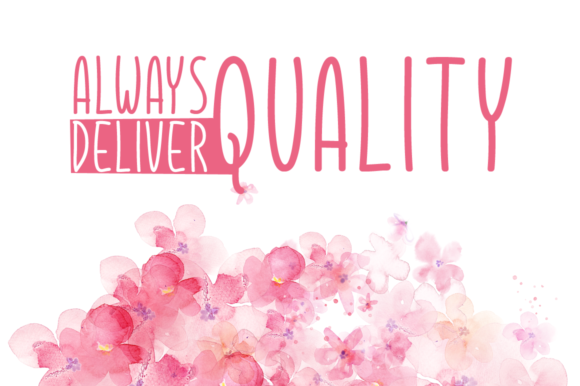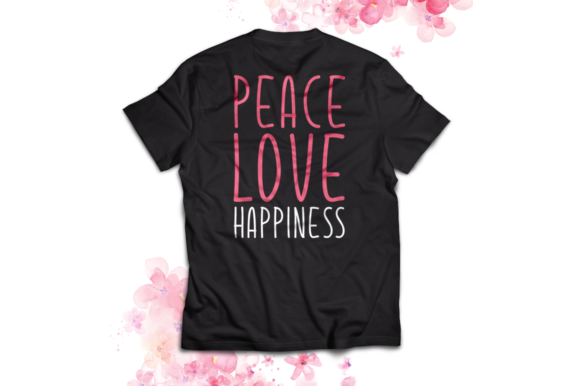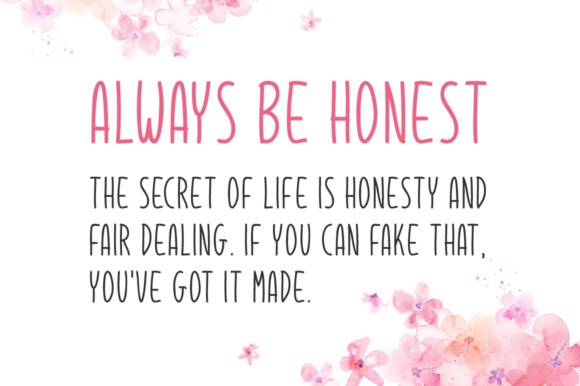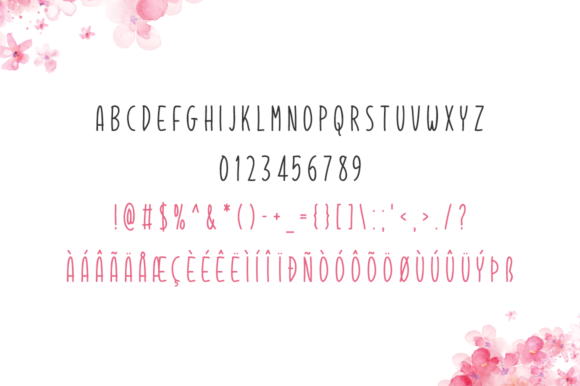
Discover the Perfect Touch of Whimsy with the Blumen Paradise Font
There’s something magical about the first spark of creativity – the moment when an idea starts to take shape, and you can’t wait to see it come to life. For designers, this moment is often the starting point of a new project, and the right font can make all the difference. That’s why we’re excited to introduce the Blumen Paradise Font, a brand new handwritten font that’s sure to add a touch of whimsy to your designs.
Perfectly suited for a wide range of applications, from stationery to website headers, the Blumen Paradise Font is a valuable addition to any designer’s toolkit. Its unique, hand-drawn feel makes it perfect for creating eye-catching logos, posters, and flyers, while its versatility ensures it will always look great, no matter what you’re creating.
Blumen Paradise Font Key Features
- Font Family: Blumen Paradise is a unique, hand-painted font that includes 3 styles: Regular, Italic, and Outline.
- Size: Each character in the font is carefully crafted to be highly legible, with a character set that includes a wide range of languages and glyphs.
- Unique Characteristics: Blumen Paradise features a distinctive, hand-painted aesthetic, with intricate brushstrokes and subtle texture that gives it a warm, organic feel.
Blumen Paradise Font Review
Overall, I’d say the Blumen Paradise Font is a nice addition to any designer’s toolkit. It’s a beautiful, high-quality font that’s perfect for creating a whimsical, floral vibe in your designs.
- ✨ The font’s unique, hand-drawn feel gives it a charming, one-of-a-kind look that’s sure to stand out.
- ✨ The Blumen Paradise Font is incredibly versatile, working well in both digital and print applications.
- ✨ The font’s extensive character set includes a wide range of languages and special characters, making it easy to use in global designs.
- ⚠️ The font can be a bit difficult to read at small sizes, which may limit its use in certain applications.
- ⚠️ Some users may find the font’s whimsical style a bit too playful or distracting for certain design projects.
In conclusion, I’d recommend the Blumen Paradise Font to designers looking to add a touch of elegance and whimsy to their projects. While it may not be the best choice for every design, it’s a great option for those who want to create a unique, eye-catching look.
The Blumen Paradise Font is ideal for creating elegant and sophisticated designs, such as:
- Floral-themed posters and prints
- Luxury branding and packaging
For the most striking results, use the font in combination with floral patterns and pastel colors.